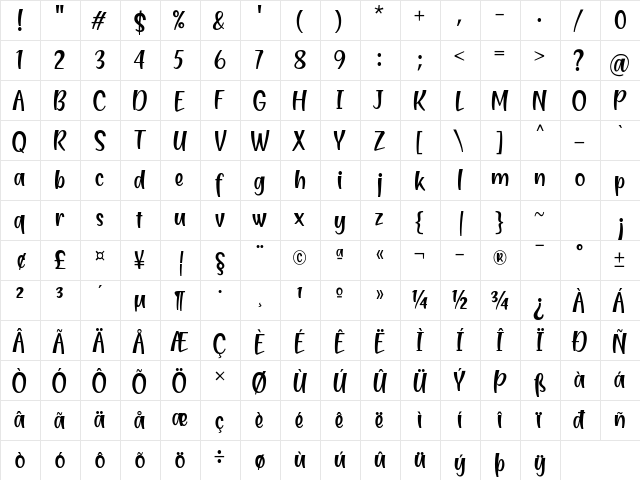
Blending Attraction Regular
| Foundry | 7NTypes |
| Designer | Situjuh Nazara |
Design Context for Blending Attraction Typeface
Blending Attraction is a composed and adaptable typeface that performs quietly and consistently across a wide range of design contexts.